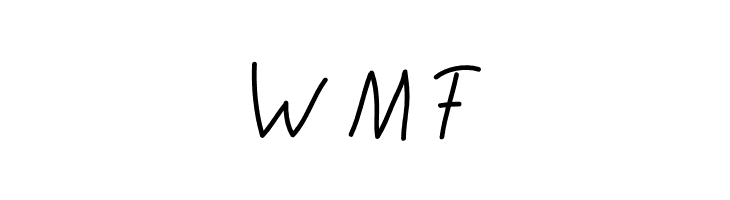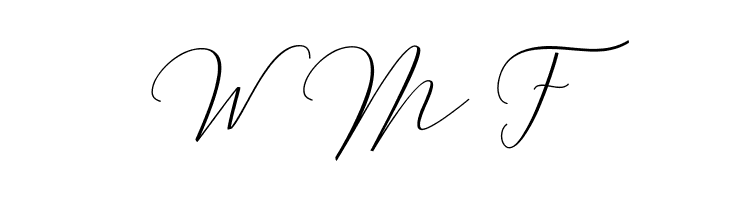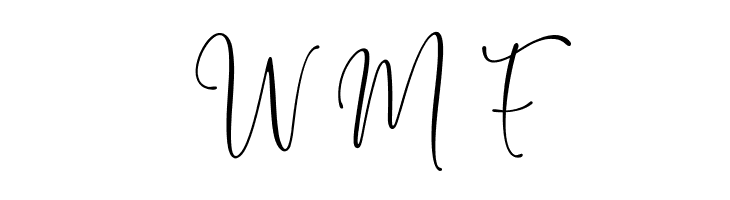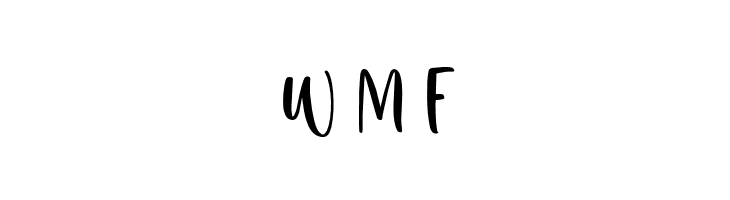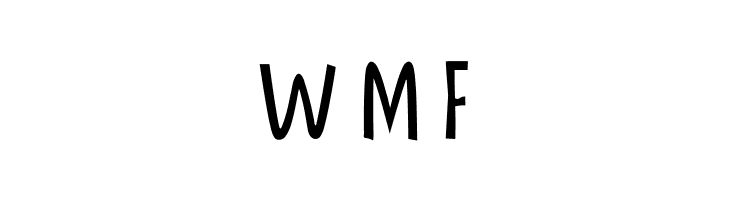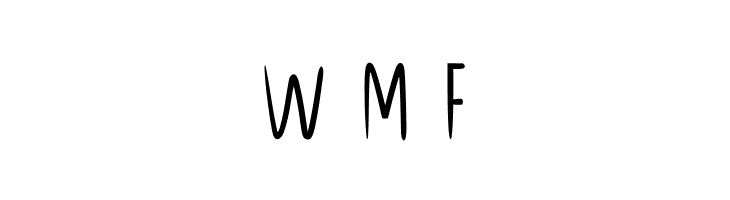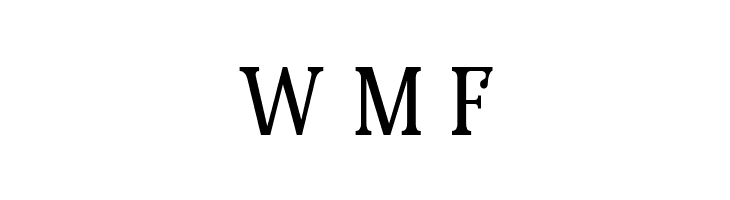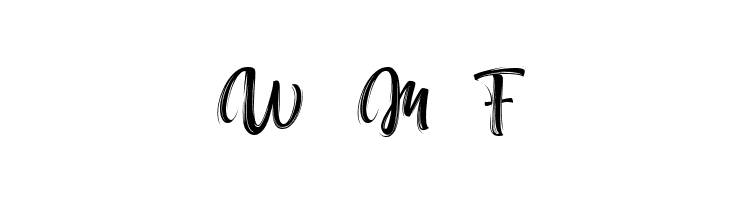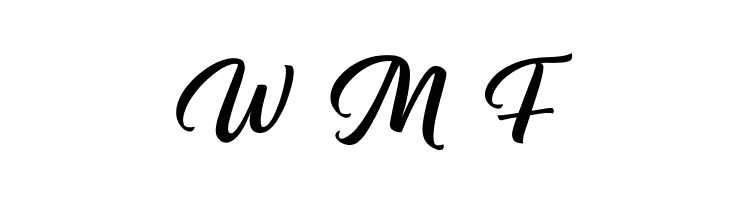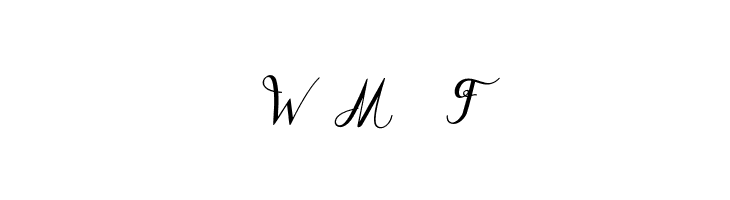
A lively, casual handwritten font with fluid and connected letterforms.
A bold, playful font with rounded, bubbly characters and a retro vibe.
A modern, elegant script font with flowing lines and graceful swashes.
A dynamic and elegant script font with fluid, cursive letterforms.
A bold, expressive brush script font with dynamic strokes and a hand-drawn feel.
An elegant and expressive script font with bold, calligraphic strokes.
An elegant script font with flowing, interconnected letters and graceful curves.
A modern, elegant script font with flowing cursive letters and dynamic strokes.
A bold, decorative font with sharp, angular outlines and high contrast.
A sophisticated cursive script with elegant, fluid lines.
A playful, hand-drawn font with bold, irregular strokes and a casual vibe.
A playful and casual handwritten font with elongated, smooth letterforms.
A flowing, cursive script font with elegant, interconnected characters.
A classic serif font with elegant and pronounced serifs, offering a timeless and sophisticated look.
A bold, expressive script font with flowing, interconnected strokes.
A dynamic and elegant script font with flowing, cursive letterforms.
A bold, condensed font with sharp angles and uniform stroke width.
A bold, geometric sans-serif typeface with a modern and clean design.
A graceful and sophisticated script font with flowing, interconnected characters.
An elegant script font with flowing, cursive strokes and sophisticated style.
An elegant script font with flowing, decorative cursive letters.
Elegant cursive font with fluid, handwritten style.
A playful, casual handwritten font with fluid strokes and a dynamic slant.
A graceful script font with flowing, cursive letters and decorative flourishes.
An elegant script font with flowing, cursive letterforms and high contrast.
An elegant script font with flowing, cursive letters and intricate details.
A bold, brush-style font with a hand-painted, artistic appearance.
A distressed, textured font with a vintage, hand-drawn style.
A bold, expressive script font with dynamic strokes and elegant flourishes.
A modern, extra-light sans-serif font with a clean and minimalistic design.